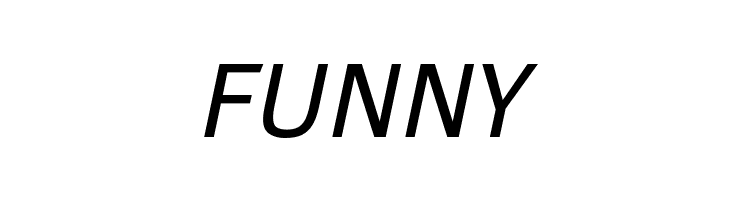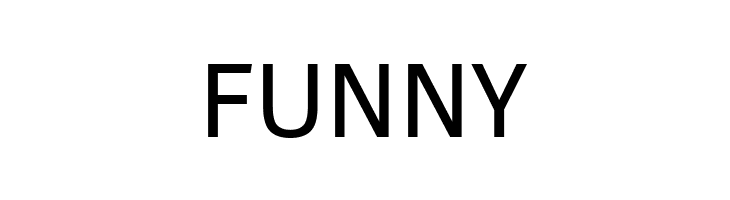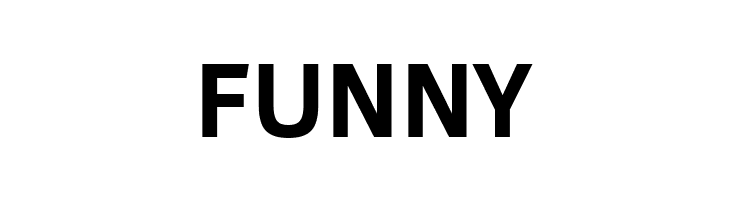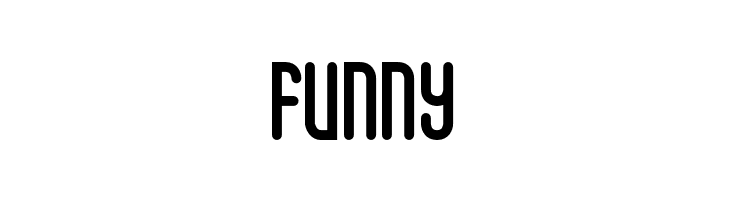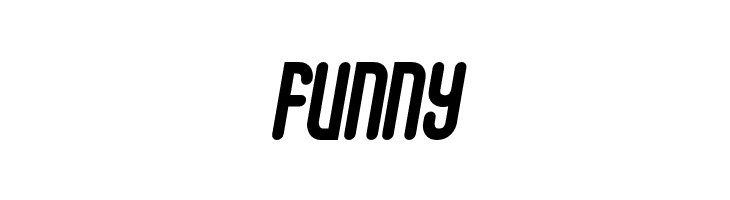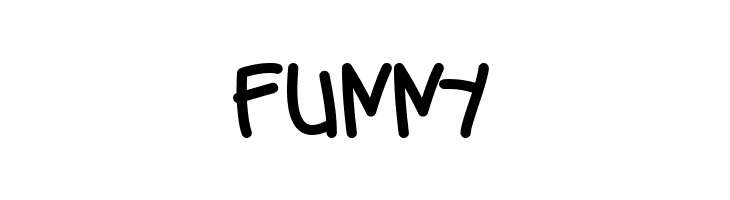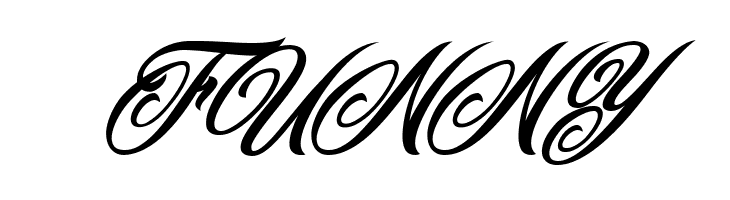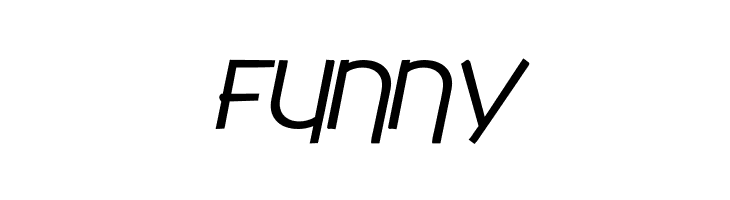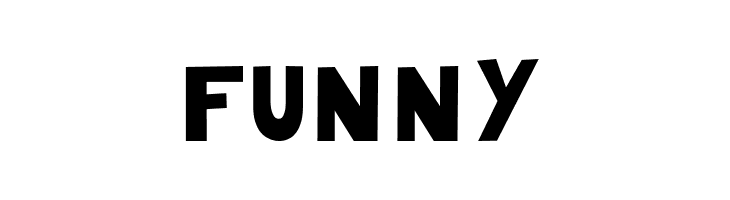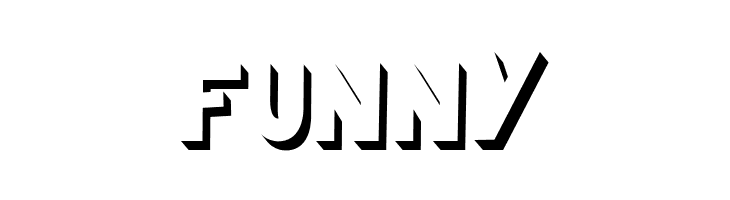
• cachetona
• cachetona llena
• Cacilds Regular
A dynamic and elegant script font with flowing, cursive letterforms.
• Cactron Bold
A bold, rounded font with smooth curves and consistent stroke width.
• Cactron Bold Italic
A bold, italicized font with a modern, compact style and medium contrast.
• Cactron Italic
A bold, italic font with rounded characters and a modern, dynamic style.
• Cactron Regular
A bold, rounded font with smooth curves and uniform stroke width, offering a modern and approachable style.
• Cactulus
A lively, cursive handwritten font with smooth, connected letters.
• Cactus Hugs
A playful handwritten font with a casual and friendly style.
• Cactus Story
A playful handwritten font with a casual, dynamic style.
• Cactus Tequila
A bold, textured font with a hand-drawn, artistic style.
• CactusBlossom
A bold, spiky decorative font with a playful cactus-inspired design.
• Cactuss
A playful, bold handwritten font with rounded edges and a casual style.
• Cadancy Demo
A modern, playful font with rounded, monoline strokes and a handwritten touch.
• CadancyDemo
A modern, playful font with rounded, monolinear strokes and a slight cursive flair.
• CADILLAC PERSONAL USE Italic
An elegant, italic script font with ornate flourishes and a luxurious appearance.
• Cadman
A modern, clean sans-serif font with balanced spacing and consistent stroke width.
• Cadman Bold
A bold, modern sans-serif font with clean lines and balanced spacing.
• Cadman Bold Italic
A bold, italicized typeface with a modern and dynamic style.
• Cadman Italic
A modern italic typeface with clean lines and subtle curvature.
• Cadora Woods DEMO Regular